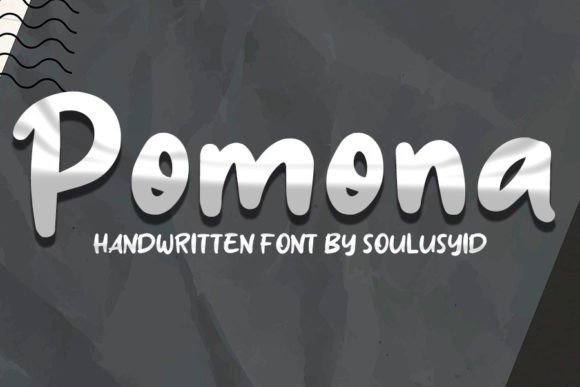
In a world of mundane fonts, meet Pomona Font, a whimsical, carefree creation from the mind of SoulusYid. This captivating script font embodies the spirit of spring, bringing a touch of cheerfulness to any project it graces. Let your imagination blossom with Pomona Font, the perfect companion for crafts, presentations, greeting cards, and more.
With its playful curves and energetic strokes, Pomona Font dances across the page, evoking a sense of joy and lightheartedness. Its childlike charm lends a personal touch to any design, making it a favorite among crafters, teachers, and creative professionals alike. Whether you're crafting personalized invitations, adding a touch of whimsy to your presentations, or creating heartfelt greeting cards, Pomona Font will elevate your projects to new heights.
But Pomona Font is more than just a pretty face; it's also incredibly versatile. Its playful personality shines through in both formal and informal settings, making it suitable for a wide range of projects. From eye-catching logos and branding materials to playful social media posts and website designs, Pomona Font adapts effortlessly to your creative vision.
Embrace the magic of Pomona Font and transform your creative projects into vibrant expressions of joy. Let its cheerful spirit infuse your designs with a sense of wonder and delight. Step into the world of Pomona Font and discover the endless possibilities that await you.